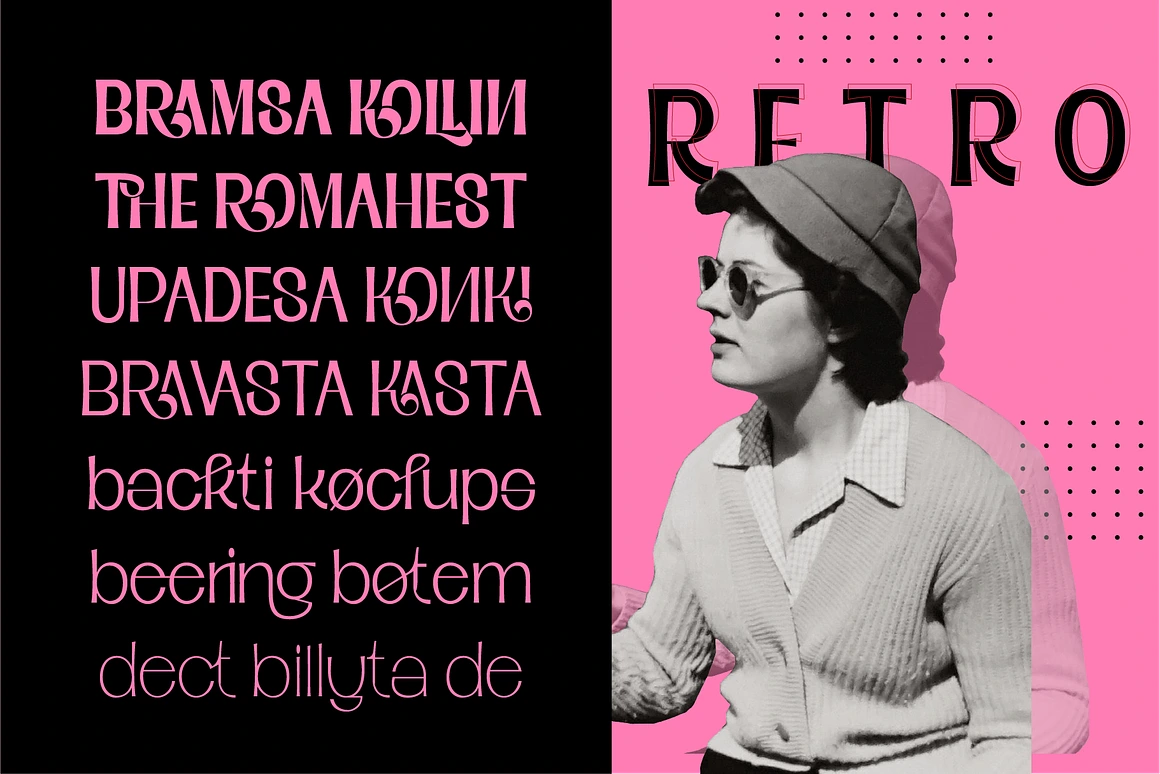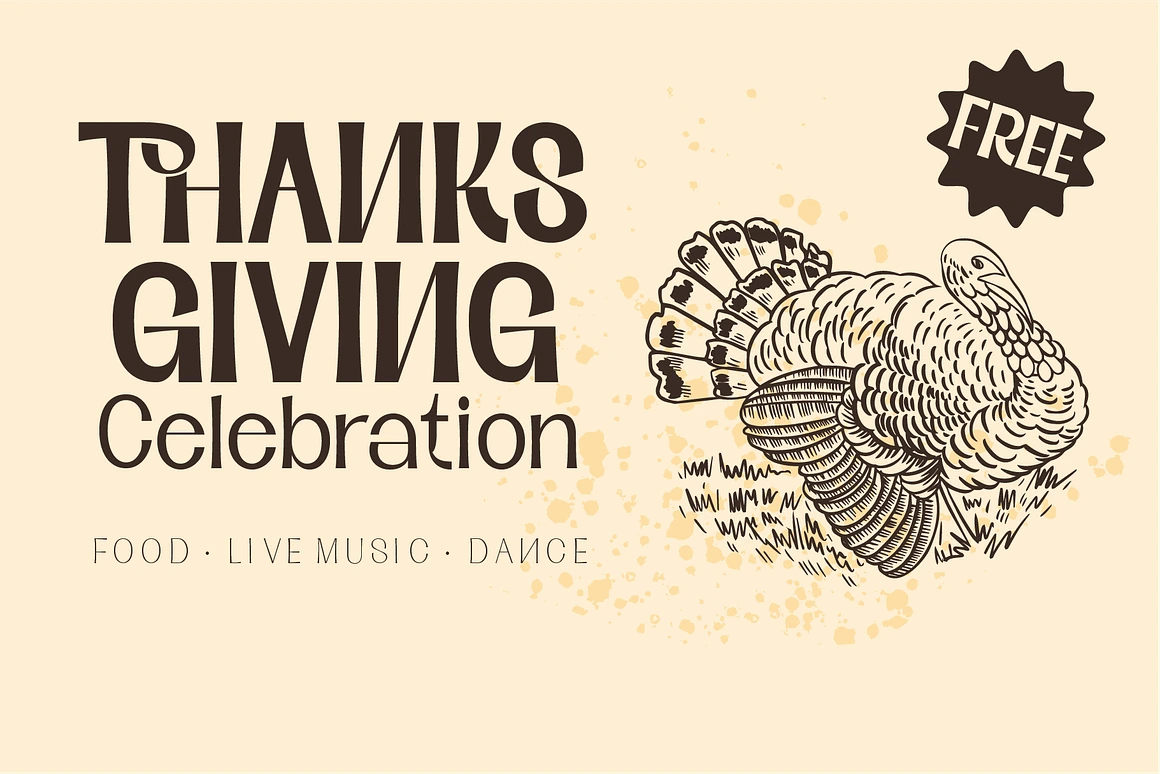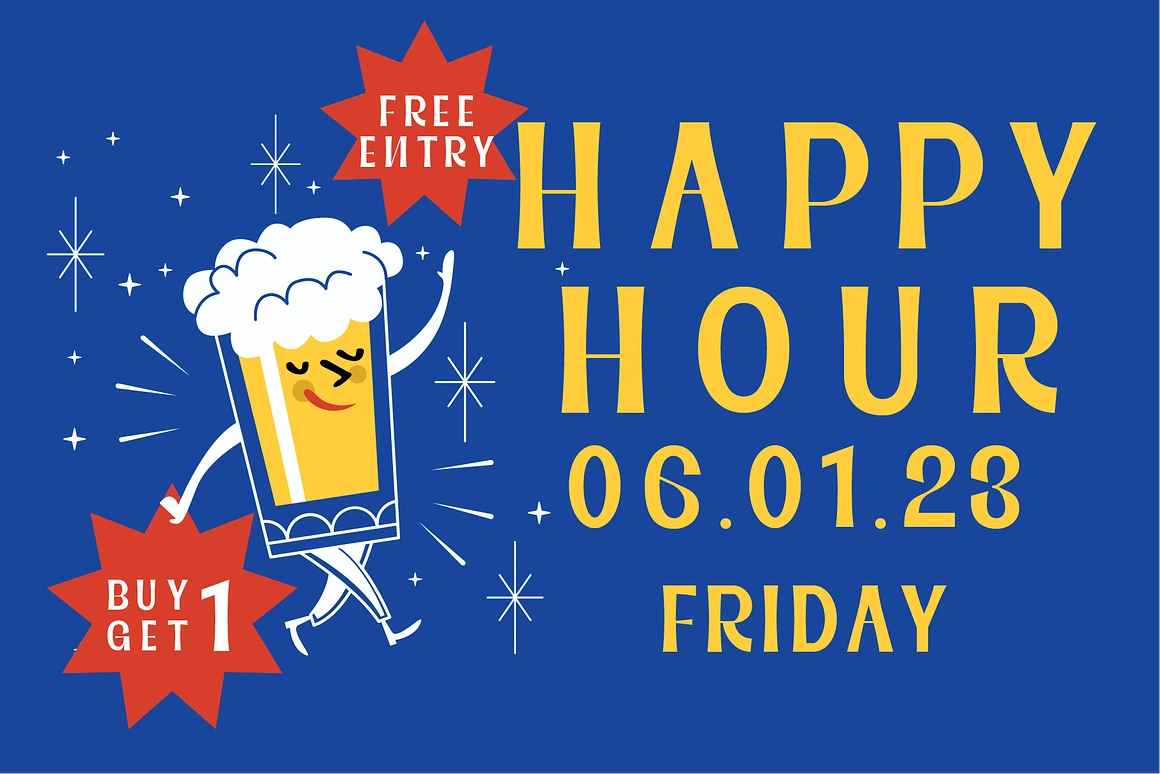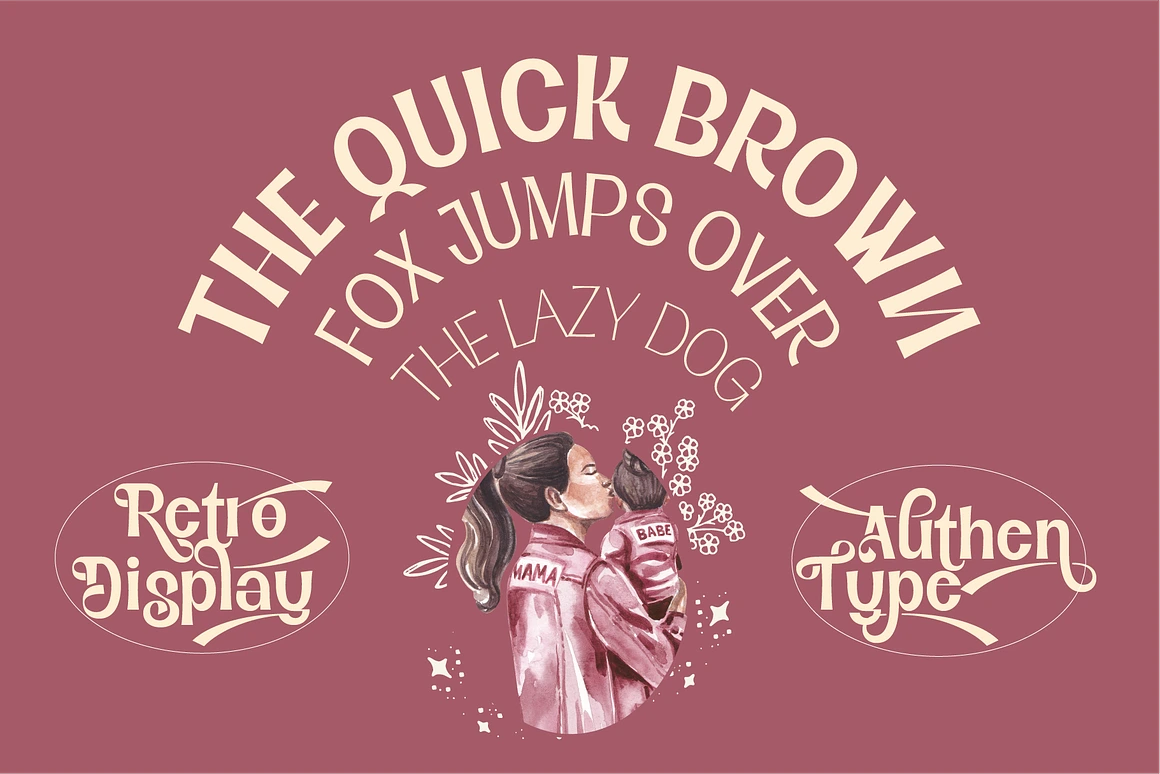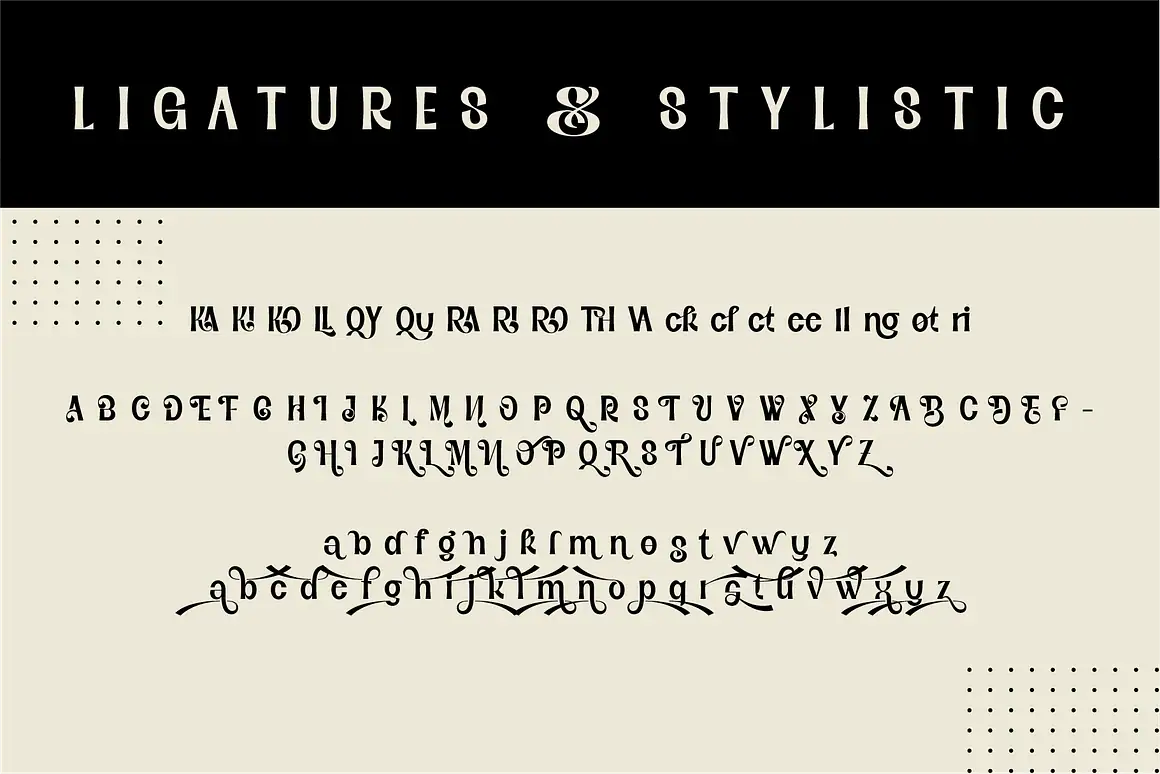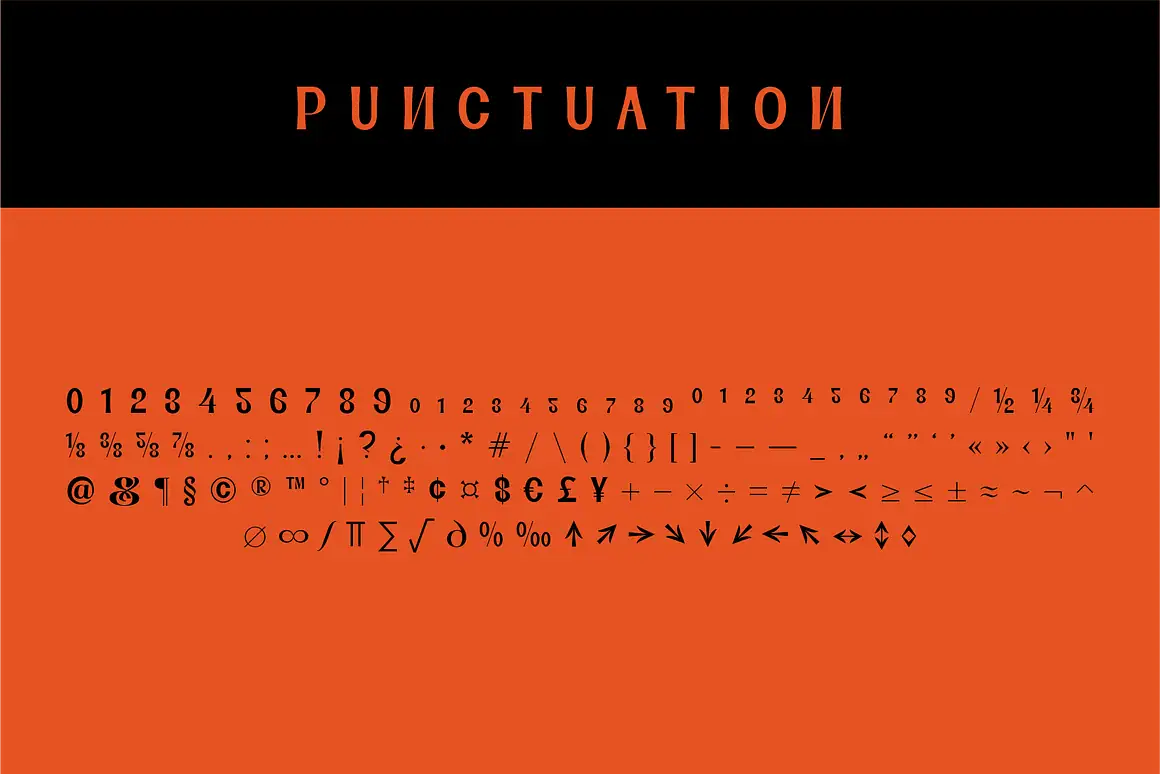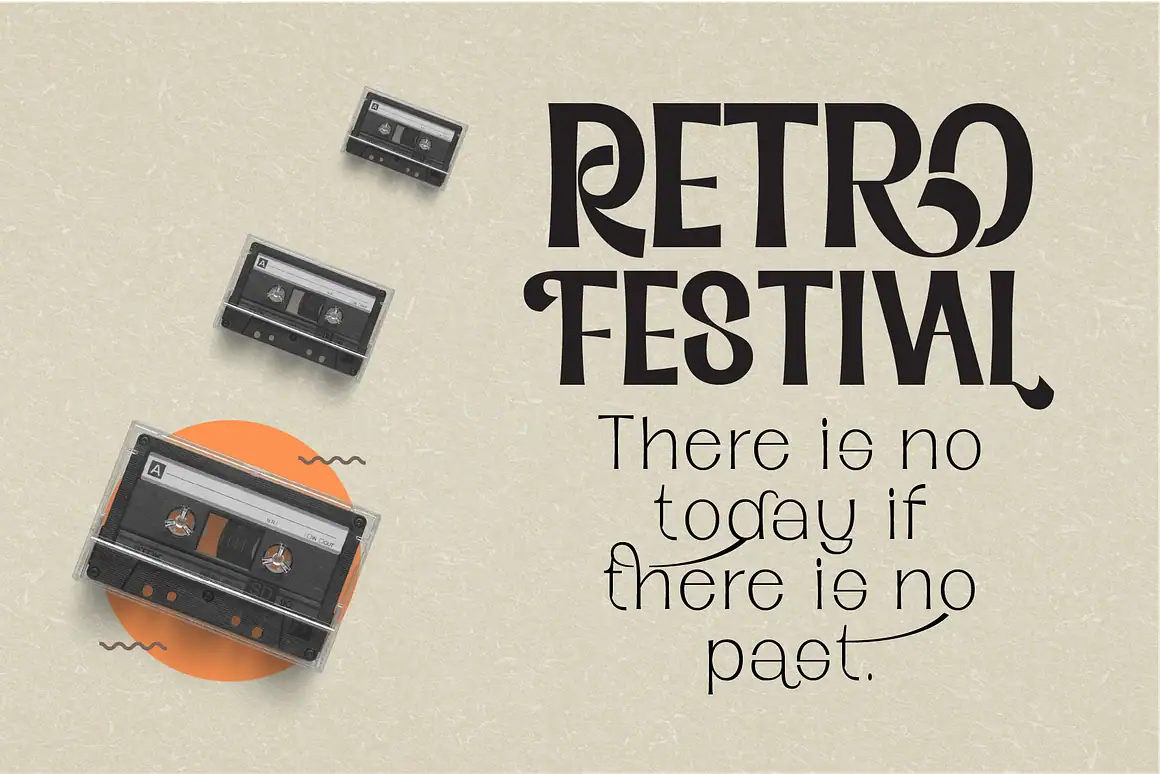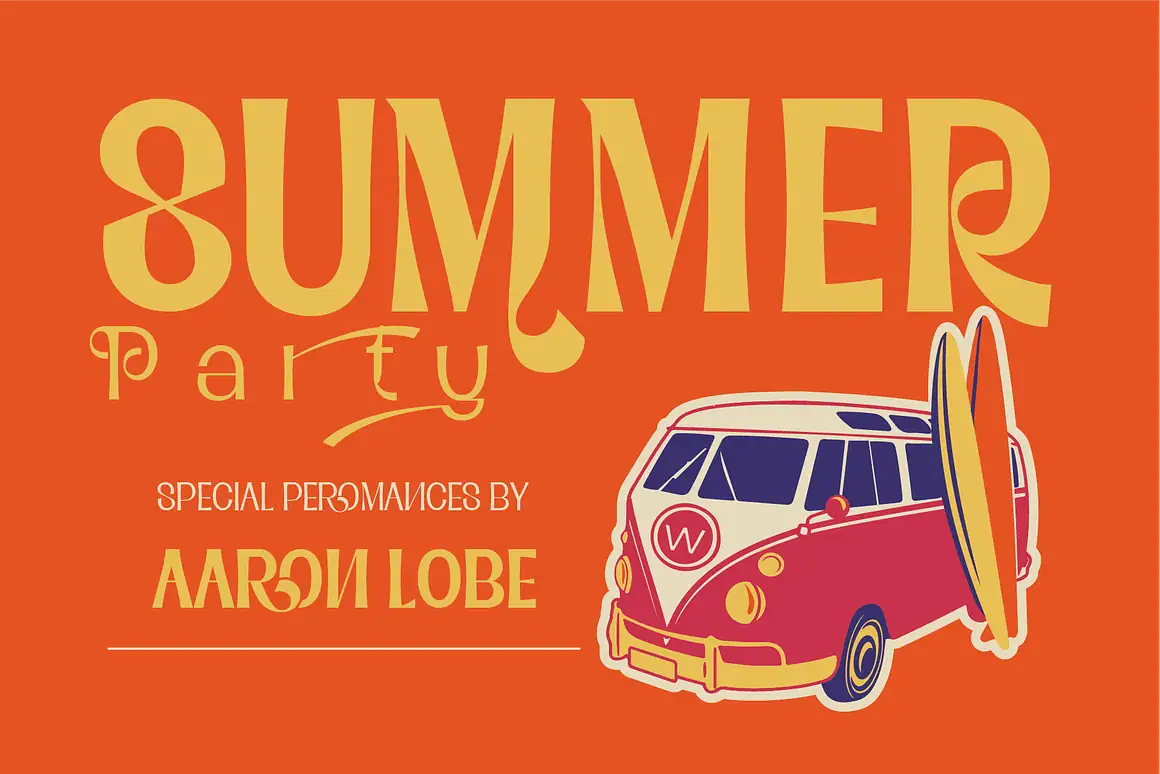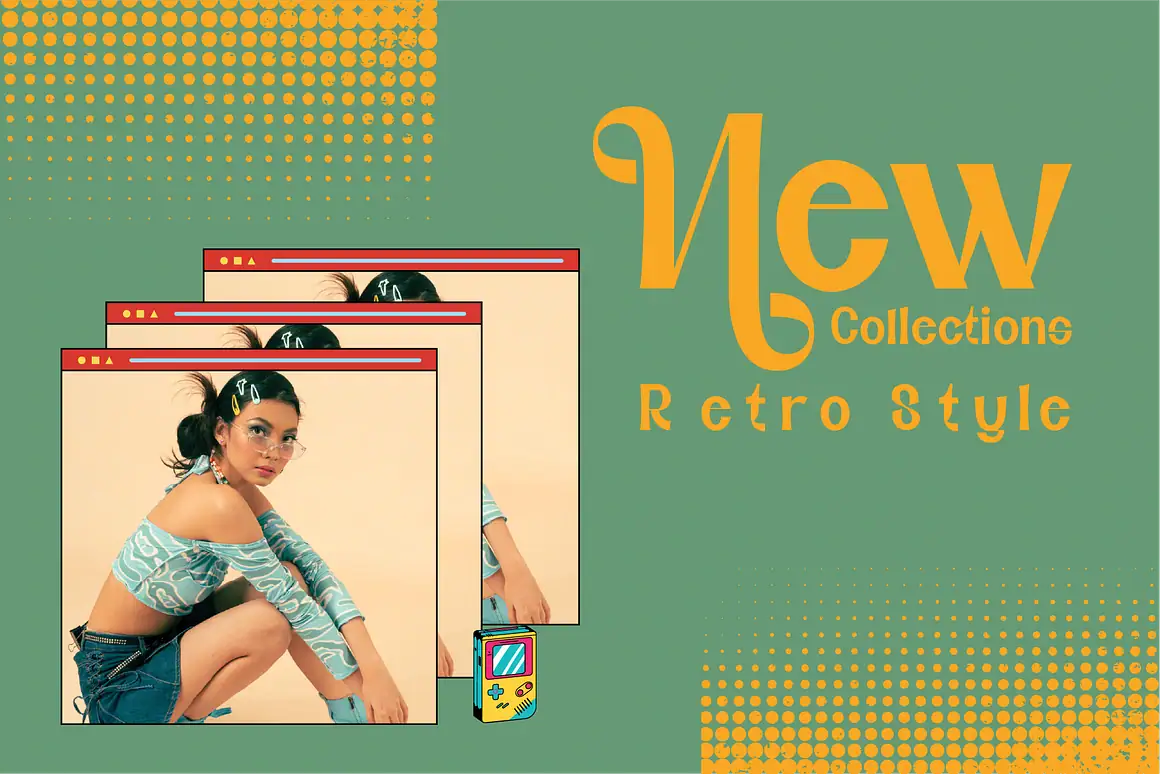
Black Sansa Pro - Retro Display Font
Black Sansa Pro Complete Family
Thin
ExtraLight
Light
Medium
SemiBold
Bold
ExtraBold
Black
Black Sansa Pro
Black Sansa Pro – Retro display font with a full set of uppercase and lowercase letters, multilingual symbols, numbers, punctuation, stylistic set, and ligatures. Black Sansa Pro retro display font style for retro poster, magazine, retro beauty branding design in vintage style suitable for your retro design concept.
* Fonts include multilingual support for; ä ö ü Ä Ö Ü ß ¿ ¡ ____